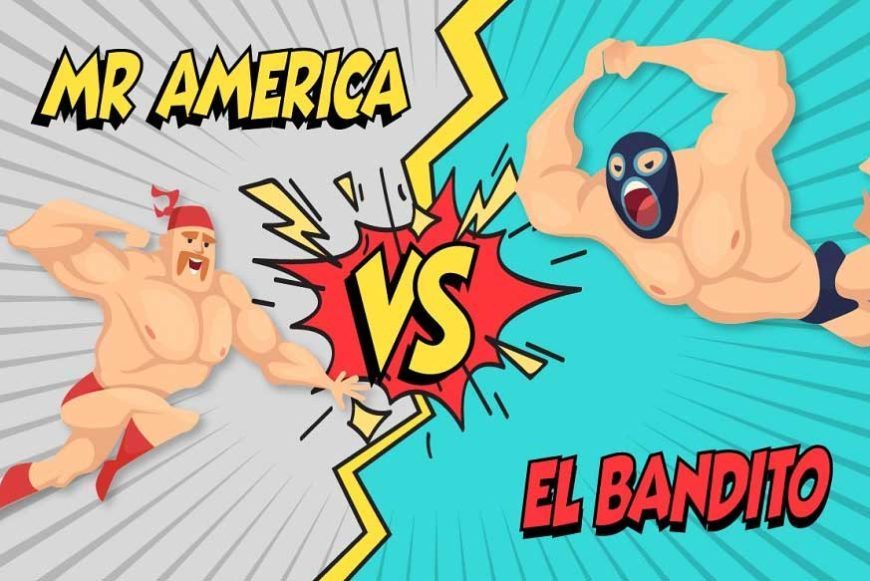
Best Friends Comic Font
Best Friends Comic Font is aptly named for its popularity in comic books. It adds a humorous touch to content, making it perfect for drop caps and headlines.
A version of favored nineteen-1930s font Futura display, it’s inspired through the way of lettered posters from a bygone technology.